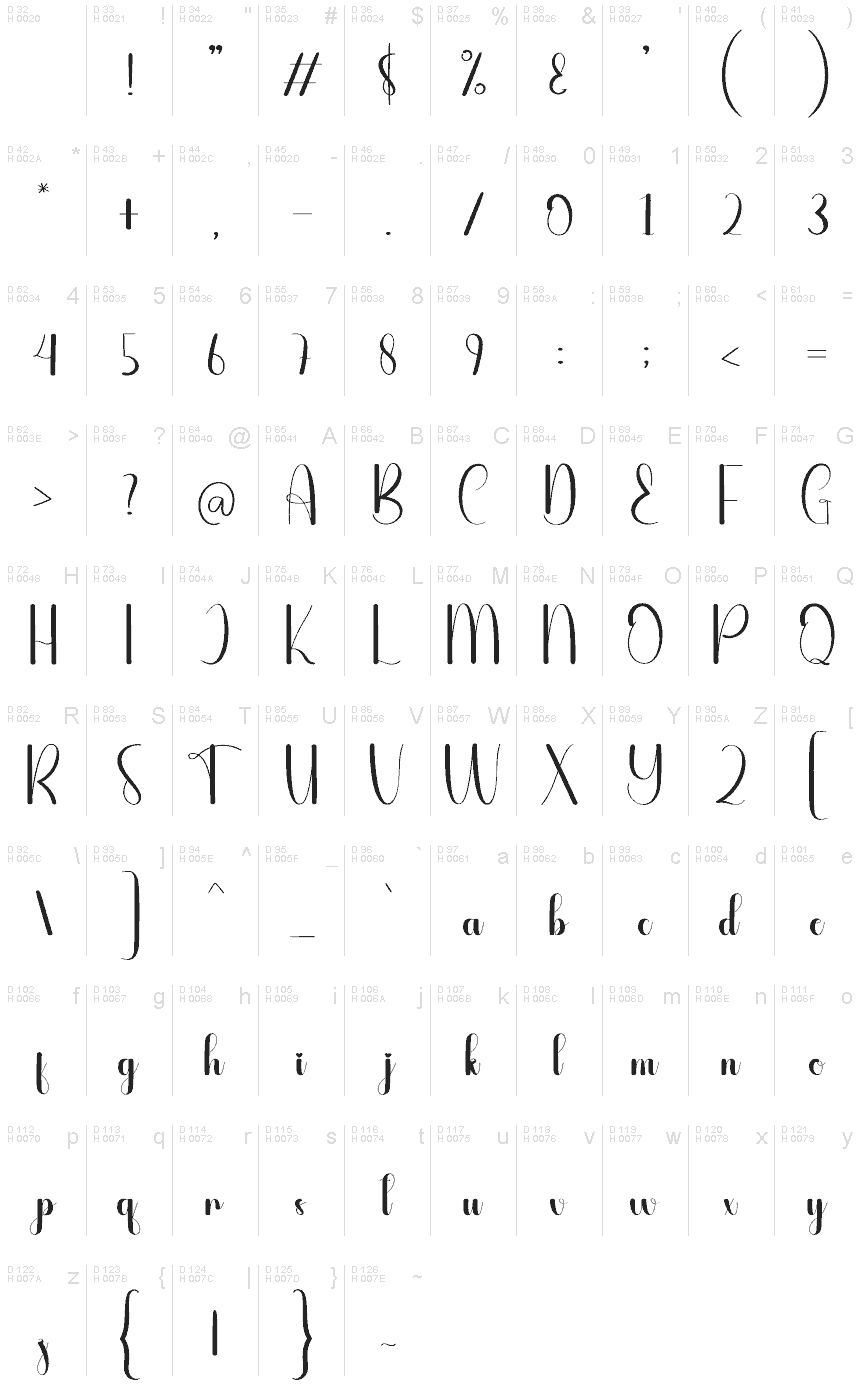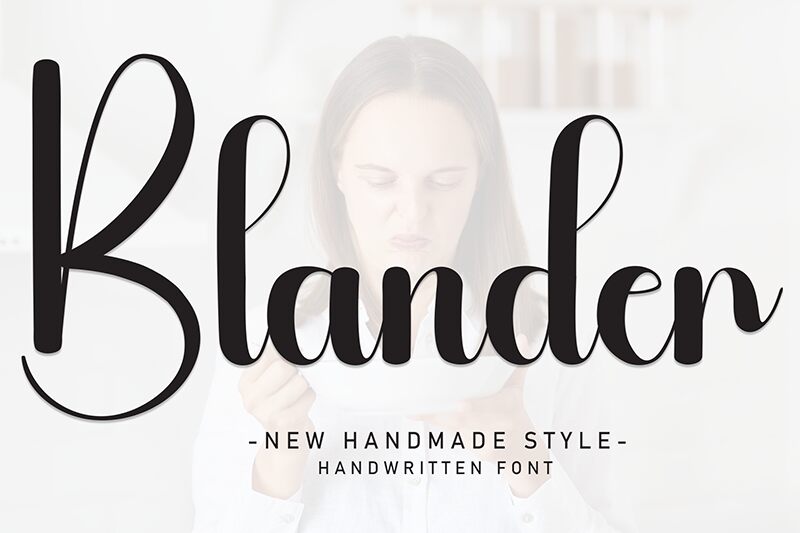
Blander
Blander font by Andi Moz is an elegant and sophisticated free calligraphy font. Its flowing and expressive characters form a modern calligraphy style with a stylish demeanor that perfectly translates into high-end artistic applications.